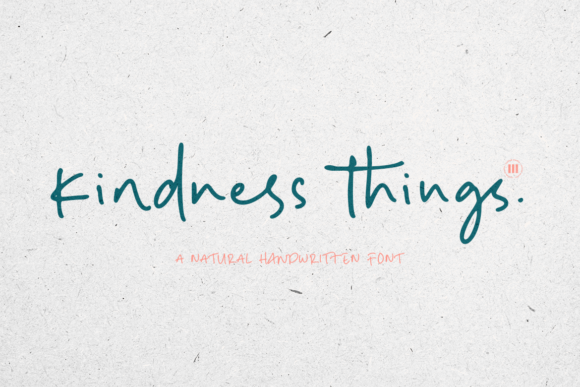
Kindness Things Font for Web Design
In the fast-paced world of digital product creation, typography is often the silent ambassador of your brand. As web designers and UI specialists, we constantly balance aesthetic appeal with functional clarity. We need typefaces that do more than just display text; they must evoke emotion, guide the user’s eye, and reinforce brand identity without sacrificing readability. This is where Kindness Things enters the conversation. It is not merely a decorative element but a strategic design asset for creators looking to infuse warmth and authenticity into their digital experiences.
Kindness Things is a chic handwritten font that captures a unique, natural, and catchy vibe. For those of us building landing pages, online stores, or personal portfolio sites, finding the right script font can be challenging. Many handwritten options feel too messy for professional contexts or too rigid to feel human. Kindness Things strikes a delicate balance. It offers the organic flow of a genuine signature while maintaining the structural integrity needed for modern web layouts. Whether you are designing a hero section for a coaching website or crafting a banner for a boutique e-commerce store, this typeface provides the visual hook necessary to stop the scroll.
Enhancing Visual Hierarchy in Digital Layouts
One of the primary roles of typography in web design is establishing visual hierarchy. Users scan websites rather than reading them word-for-word. To guide this scanning behavior, we rely on contrast in size, weight, and style. Kindness Things serves as an excellent display font for high-impact areas. When used in hero headers, it immediately draws attention to the core value proposition. Its handwritten nature creates a focal point that stands out against cleaner, geometric sans serif fonts typically used for body copy.
Consider a landing page for a creative course or a digital workshop. The main headline needs to feel inviting and personal. Using Kindness Things for the primary heading creates an immediate emotional connection, suggesting that the content behind the click is crafted with care. However, effective use requires restraint. Because it is a script font, it works best for short phrases, titles, and call-to-action accents rather than long paragraphs. By limiting its use to key elements like section headings or pull quotes, you preserve its impact and ensure the layout remains breathable and easy to navigate.
Brand Tone and User Engagement
Every pixel on a screen contributes to brand trust. In an era where users are skeptical of overly corporate or generic designs, authenticity is a currency. Kindness Things helps humanize digital interfaces. It is particularly effective for brands that want to project approachability, creativity, and warmth. Think of lifestyle bloggers, wellness coaches, artisanal online shops, or independent consultants. These entities benefit from a typeface that feels handcrafted rather than manufactured.
When integrated into a brand-focused web experience, this font supports a consistent online identity. If your logo design utilizes Kindness Things, carrying that same typography into your website headers, social media graphics, and email newsletters creates a cohesive narrative. This consistency reduces cognitive load for the user; they recognize the brand voice instantly, whether they are viewing an Instagram story or navigating your homepage. The "catchy vibe" mentioned in its description translates to higher engagement rates because the design feels tailored and thoughtful, encouraging users to spend more time exploring the content.
Practical Applications for Web and UI Designers
So, where exactly does Kindness Things fit in your design toolkit? Here are several practical scenarios where this font shines:
- Hero Sections: Use it for large, impactful headlines on landing pages to create an immediate emotional hook.
- Logo Design: Ideal for personal brands, boutiques, or creative agencies seeking a friendly yet professional mark.
- Call-to-Action Areas: Incorporate it into button text or adjacent labels to soften the commercial feel of a "Buy Now" or "Sign Up" prompt.
- Blog Graphics: Enhance featured images or quote cards within blog posts to break up text-heavy layouts.
- Party Invitations and Digital Cards: Perfect for event-based microsites or downloadable PDF invitations embedded in web pages.
- Testimonials: Use it to highlight customer quotes, adding a personal touch that reinforces social proof.
For UI designers working on app screens, Kindness Things can be used sparingly for empty state illustrations or onboarding welcome messages. These small touches of personality can significantly improve the user experience by making the interface feel less robotic and more conversational.
Readability and Responsive Considerations
While aesthetic appeal is crucial, usability cannot be compromised. Handwritten fonts present specific challenges regarding readability, especially on mobile devices. When implementing Kindness Things, consider the following best practices to ensure optimal performance across all screen sizes:
First, pay attention to sizing. Script fonts generally require larger point sizes than sans serif fonts to remain legible. On mobile screens, ensure that the x-height and stroke width are sufficient to prevent the letters from blending together. Avoid using this font for navigation menus or footer links where space is limited and quick scanning is essential.
Second, consider contrast and background. Kindness Things performs beautifully on light backgrounds, but if you are using it over image overlays, ensure there is enough contrast. A semi-transparent overlay or a subtle drop shadow can help the handwritten strokes stand out against busy photography. Avoid placing it on dark backgrounds unless the font color is bright and the stroke weight is bold enough to maintain clarity.
Third, manage line height and letter spacing. Unlike blocky sans serif fonts, script typefaces rely on connected strokes or specific kerning pairs. Do not artificially increase letter spacing too much, as this can break the natural flow of the handwriting. Let the font breathe with adequate line height, especially when used in multi-line headers.
Font Pairing for Modern Typography
To maximize the effectiveness of Kindness Things, pair it with complementary typefaces. The goal is to create a harmonious contrast between the decorative and the functional. Since Kindness Things is a script handwritten font, it pairs exceptionally well with clean, neutral sans serif fonts. A geometric sans serif provides a stable foundation that allows the script to shine without competing for attention. This combination is a staple in modern typography for web design, offering a balance of personality and professionalism.
Alternatively, for a more editorial or vintage-inspired digital identity, you might pair it with a classic serif font. This approach works well for lifestyle blogs, wedding planning sites, or luxury boutique stores. The serif adds a layer of sophistication and tradition, while Kindness Things injects energy and modernity. Regardless of the pairing, always prioritize readability for body copy. Reserve Kindness Things for headings, accents, and short-form content to maintain a clear visual hierarchy.
Licensing and Technical Implementation
Before integrating Kindness Things into client projects or commercial products, verify the licensing terms. As a premium font, it likely comes with specific usage rights for web embedding, desktop use, and commercial applications. Ensure you have the appropriate webfont formats (such as WOFF or WOFF2) for optimal loading speeds and browser compatibility. Check for included styles, alternates, and multilingual support if your project targets a global audience. Proper licensing not only protects you legally but also supports the creators who develop these essential design assets.
In conclusion, Kindness Things is more than just a pretty typeface. It is a versatile tool for web designers and digital creators who value both form and function. By using it strategically in headers, logos, and branded content, you can elevate the emotional resonance of your digital products. When paired with clean body fonts and implemented with attention to readability, it becomes a powerful component of a cohesive, conversion-focused brand identity.